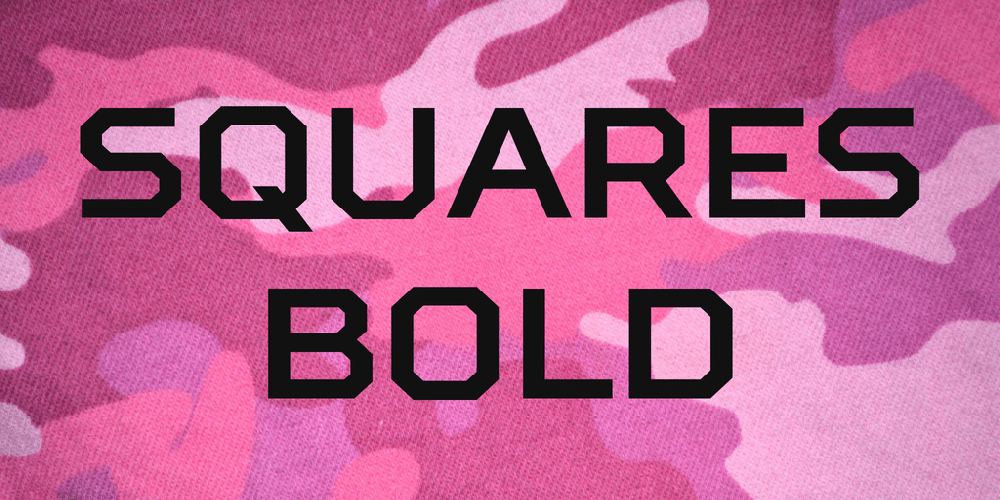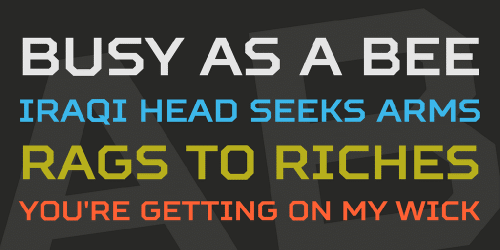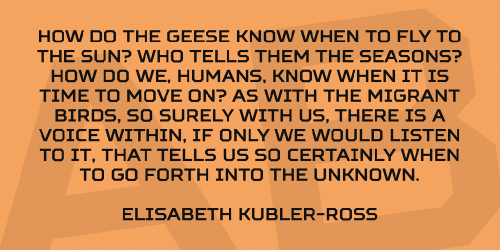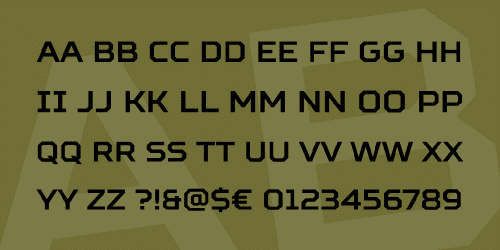
Squares Bold is free font which is a cropped version of the Squares font family. Exclusive font family style: octagonal and simple at the same time.
Squares created for infographics and statistics. This is the font that will be good to exist in the design of the future, as well as any military attributes. Most popular typefaces formula: Thin, Light, Regular, Bold, Black and Italics. Squares are ideal for short inscriptions and long text blocks.
- Designer: Ivan Gladkikh, TypeType Team